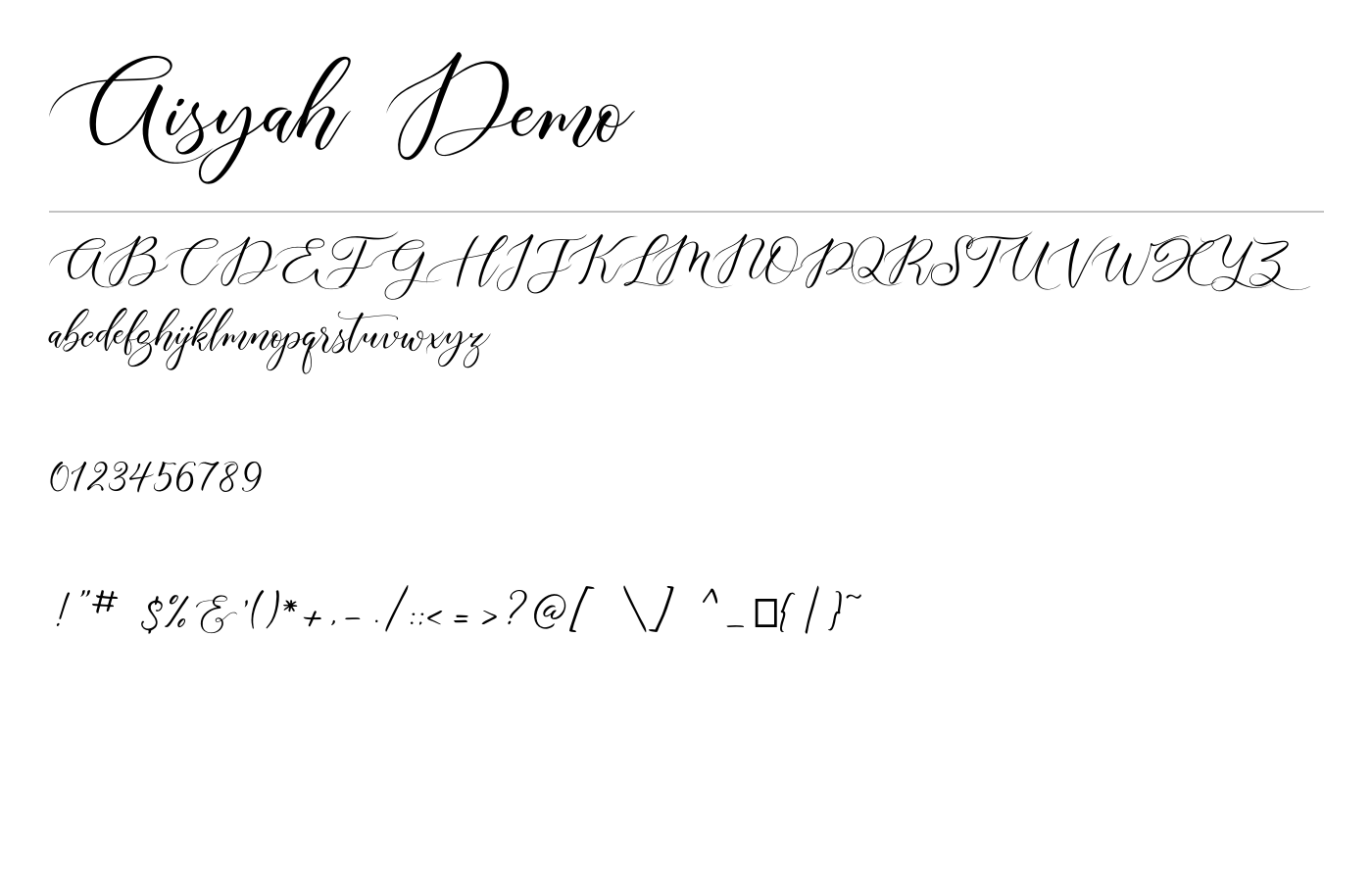
Aisyah Demo is an elegant, flowing script font characterized by its fine, delicate strokes and graceful, cursive letterforms. This font exudes a romantic and sophisticated personality, making it perfect for wedding invitations, luxury branding, and feminine editorial projects where a touch of refined beauty is desired. Its light weight and airy spacing add to its charm, creating a stylish, modern calligraphic look that works best in decorative or headline use rather than body text.
Aisyah Demo Font
About Aisyah Demo Font